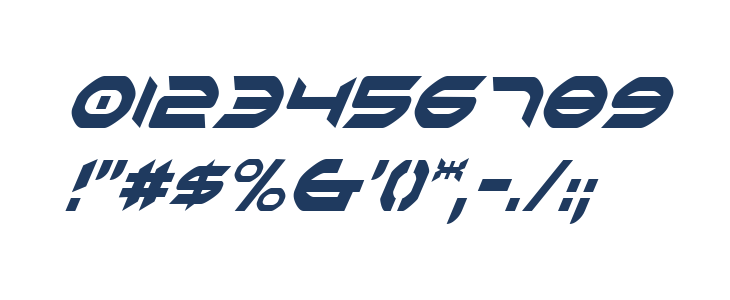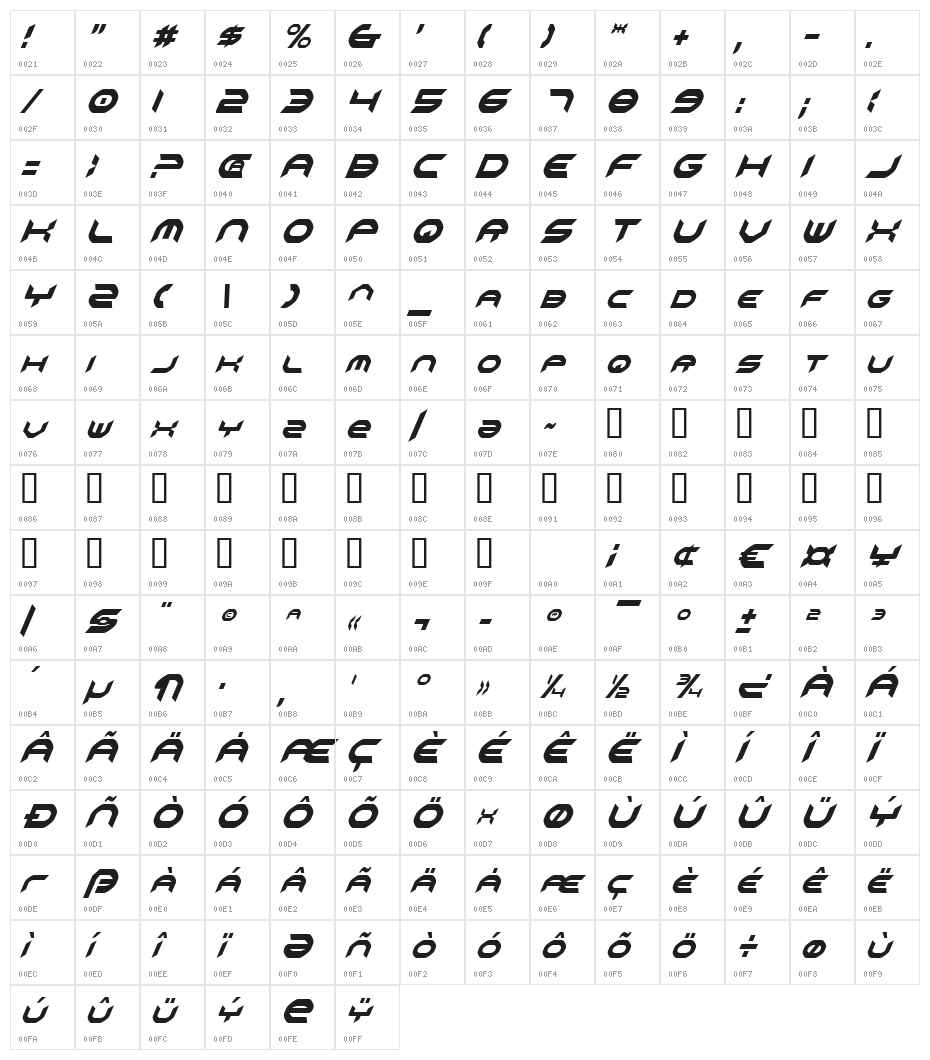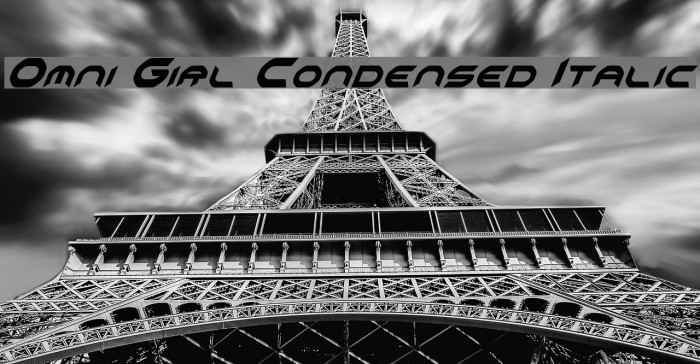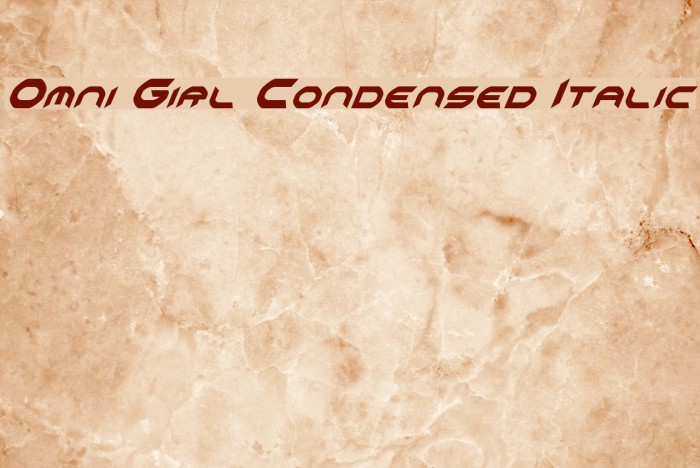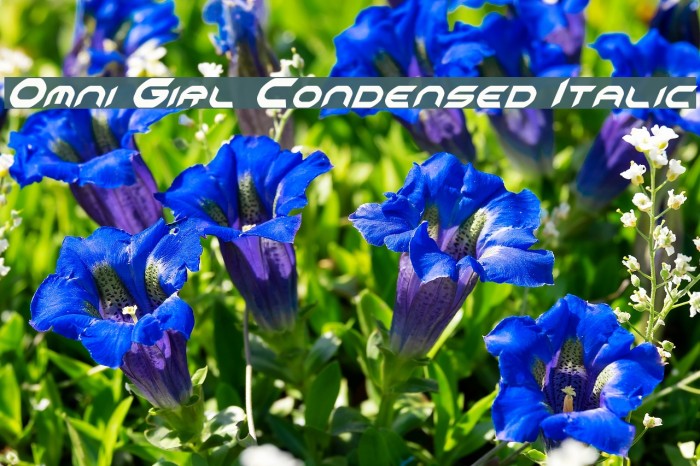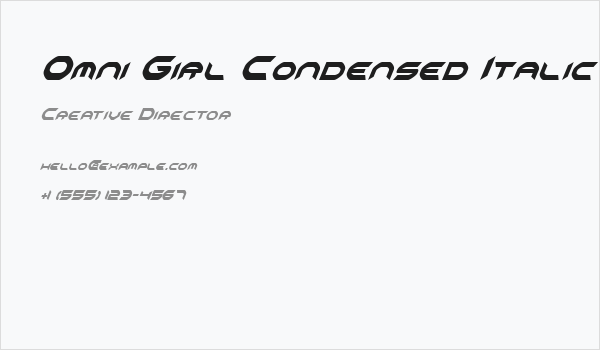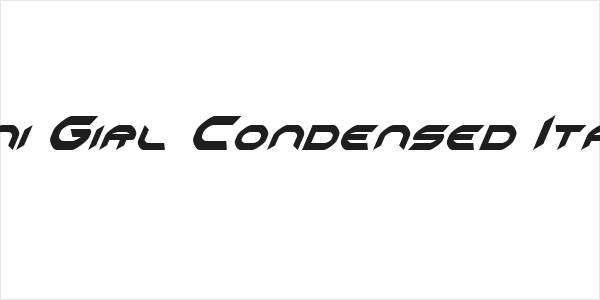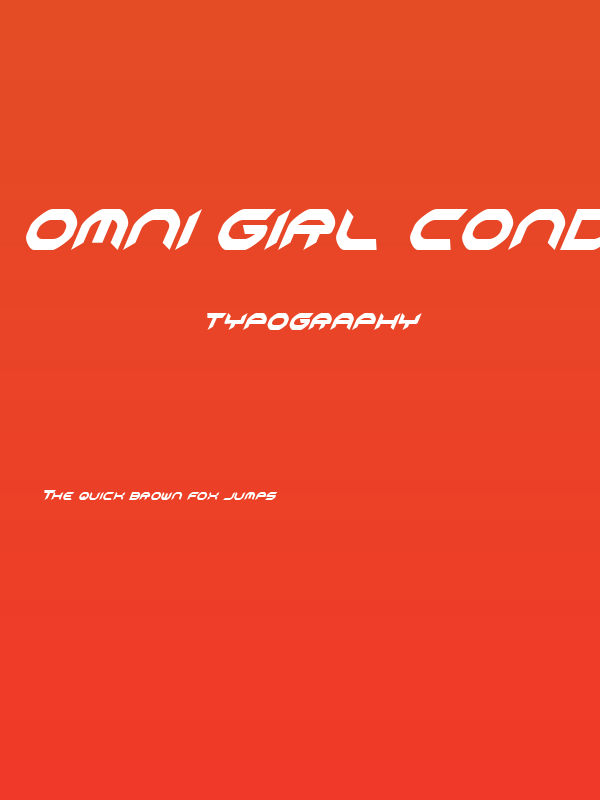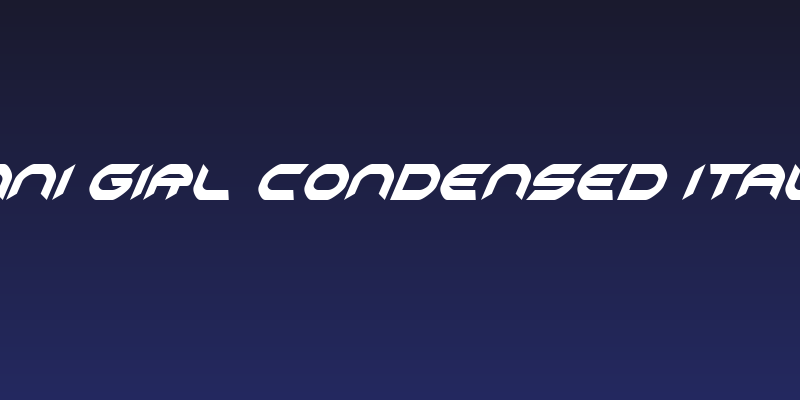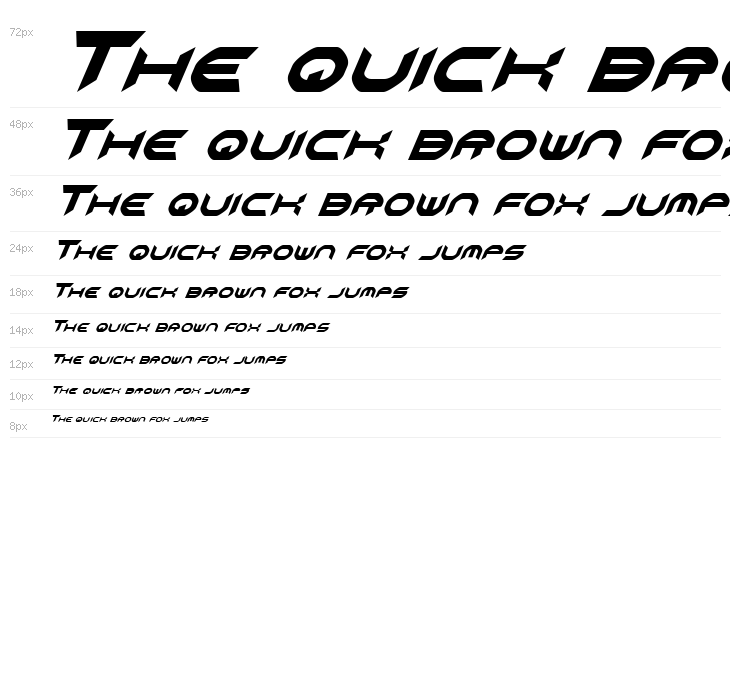
Omni Girl Condensed Italic Font
Omni Girl Condensed Italic Description
This font features a futuristic and dynamic design with sharp, angular edges and a forward-leaning italic style. The condensed form gives it a sleek appearance, making it ideal for modern and tech-oriented projects. The characters are bold and impactful, with a consistent stroke width that maintains readability while adding a sense of speed and motion. The unique design of each letter, particularly the uppercase, adds a distinctive flair, making it stand out in any application. The numerals and special characters follow the same stylistic approach, ensuring a cohesive look across all text elements.